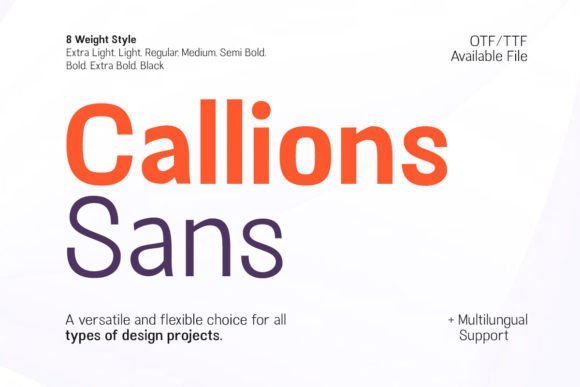
Unlocking the Power of Clean Design: Meet Callions Font
Have you ever stared at a blank canvas, waiting for inspiration to strike? For designers, those moments of creative block can be frustrating, but they can also be a chance to explore new ideas. And that’s exactly what happened when we discovered Callions Font – a versatile, modern sans serif family that’s perfect for bringing your vision to life.
With its 8 weight styles, from Extra Light to Black, Callions Font offers endless possibilities for designers. Whether you’re working on a sign, quote, branding project, or anything in between, this font family has got you covered. Plus, its multi-language support makes it a valuable asset for designers working on global projects. By incorporating Callions Font into your design arsenal, you’ll be able to communicate your message with clarity and style.
Callions Font Key Features
- Font Family: Callions Font is a sans-serif font family designed for digital and print use.
- Character Count: The font family includes over 500 characters, including uppercase and lowercase letters, numbers, and punctuation marks.
- Size: Callions Font is available in multiple weights, ranging from Light to Extra Bold, with font sizes from 8pt to 72pt.
- Resolution: Suitable for high-resolution displays, including Retina and 4K screens, with a recommended resolution of 300 DPI or higher.
- Unique Characteristics: Callions Font features a clean, modern design with a subtle rounded edge, making it ideal for digital interfaces, signage, and branding materials.
Callions Font Review
As a designer, I’ve had the chance to work with Callions Font, and I must say it’s a mixed bag. Let’s start with what works well: ✨ The font’s unique blend of modern and vintage elements makes it perfect for projects that require a touch of nostalgia. The bold weight is particularly striking, and it’s great for headlines or titles. The font also has a wide range of languages supported, making it a great option for international projects.
The Callions Font is also highly customizable, which is a big plus. You can adjust the font size, line height, and letter spacing to get the perfect look for your project. Additionally, the font is highly legible, even at small sizes, which is essential for digital projects.
However, there are some limitations to consider: ⚠️ The font can be a bit too ornate for some projects, and the regular weight can feel a bit too thin. Additionally, the font’s complexity can make it difficult to pair with other fonts, which may limit your design options.
Overall, I’d say Callions Font is a solid choice for designers looking for a unique and customizable font. While it may not be perfect for every project, it’s definitely worth considering for the right type of design.
- Unique blend of modern and vintage elements
- Bold weight perfect for headlines or titles
- Wide range of languages supported
- Highly legible, even at small sizes
Callions Font is ideal for use in creative and artistic designs, such as:
- Advertising and marketing materials.
Alternatives to Callions Font
Lato is a sans-serif font that is clean, modern, and highly legible. It’s ideal for use in body text, headings, and titles, and is particularly well-suited for digital products and websites. Lato is a great alternative to Callions Font for designers who want a more minimalist and versatile font.
Comparison to Callions Font: Lato is more geometric and has a more uniform appearance than Callions Font, which has a more organic feel. Lato is also more condensed, making it a great choice for smaller text sizes.
Montserrat is a sans-serif font that is highly legible and has a strong urban feel. It’s ideal for use in headings, titles, and body text, and is particularly well-suited for digital products, websites, and magazines. Montserrat is a great alternative to Callions Font for designers who want a more edgy and modern font.